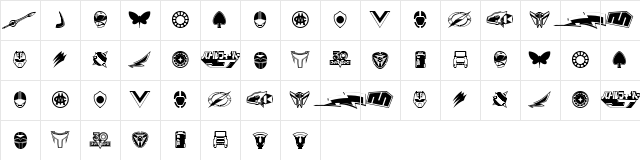
Sentai 30 Dingbats Sentai 30 Dingbats
| Foundry | Debora Aquino e Gabriela Albuquerque |
| Designer | Debora Aquino e Gabriela Albuquerque |
Design Context for Sentai 30 Dingbats Typeface
Sentai 30 Dingbats is a composed and adaptable typeface that performs quietly and consistently across a wide range of design contexts.